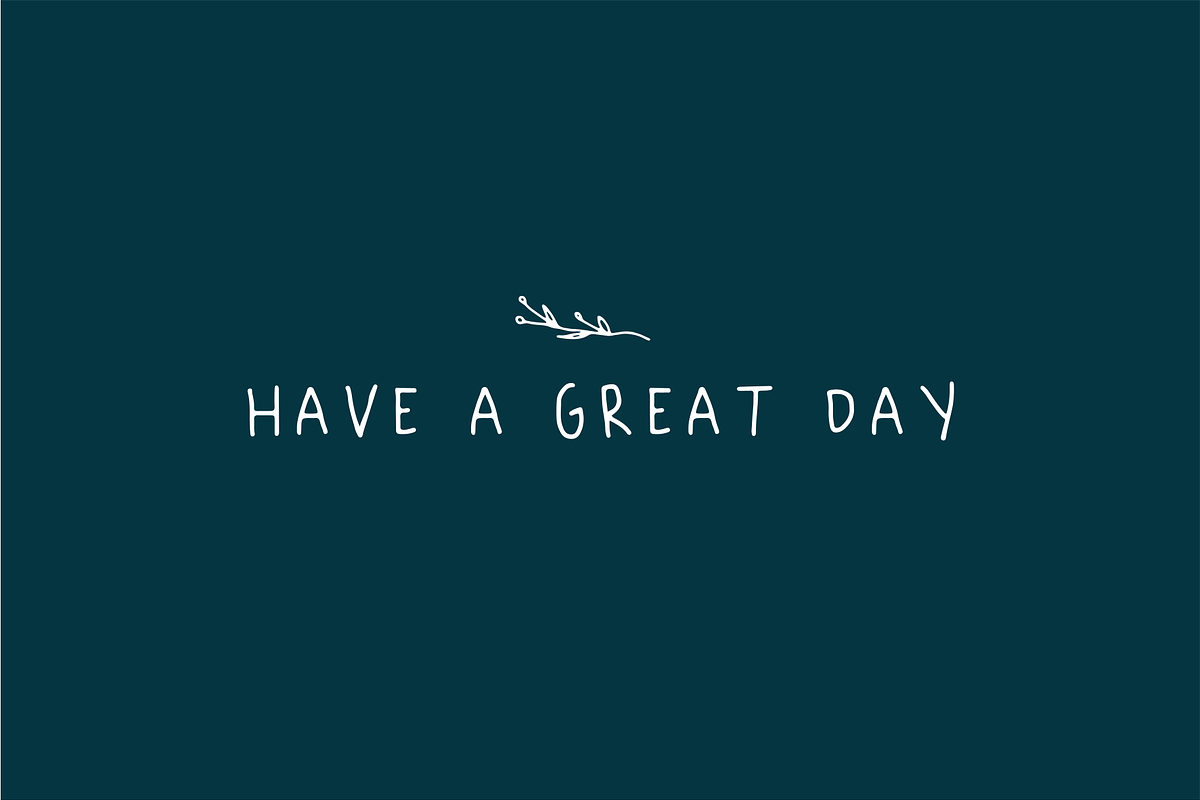
FLORENTINA
If you ever dream about light vibe, playful, easy going, cute, has some nature touch in it and still has a good read-ability font. It's time to wake up.
FLORENTINA is here. The "ink bleed", irregular line, it's look like you write it by yourself. Not mentioning that dreamy hand-drawn bonus...LOTS OF THEM.